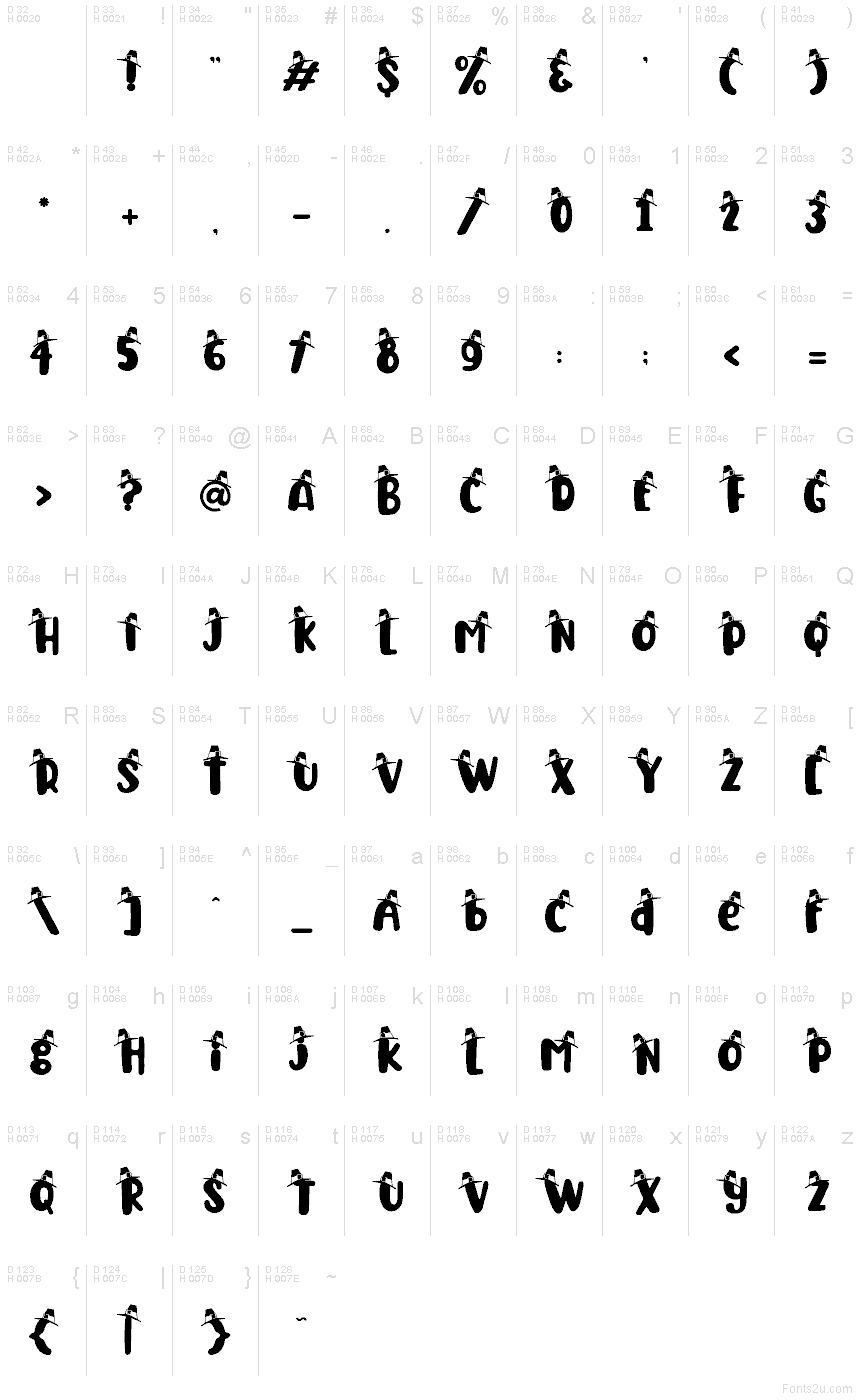
Thanksgiving Joy Hat
Thanksgiving Joy Hat font by PutraCetol Studio is a display font with a whimsical, decorative touch. It embodies festive and nature-inspired elements that bring character to its condensed look. Thanksgiving Joy Hat has bold and thin strokes variations with visual playful connections between characters.
This free display font would be perfect for holiday books, comics, adventure/exploration themes, cartoons, educational projects, worksheets, online quizzes or tests platform design, interactive activities about nature or animals aimed at kids’ entertainment and learning purposes online or offline.